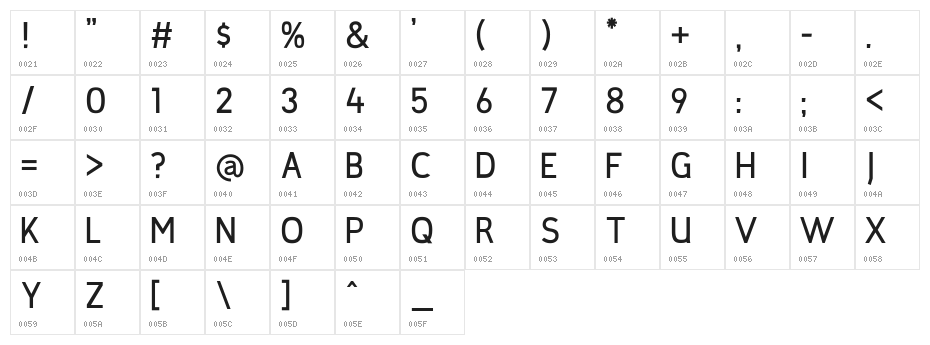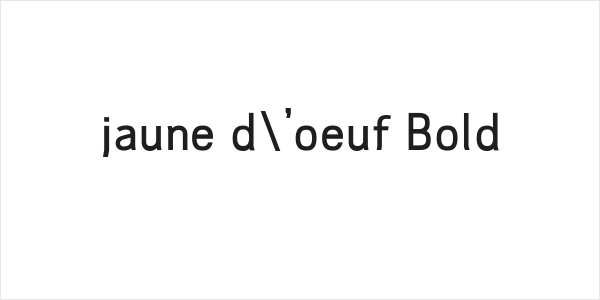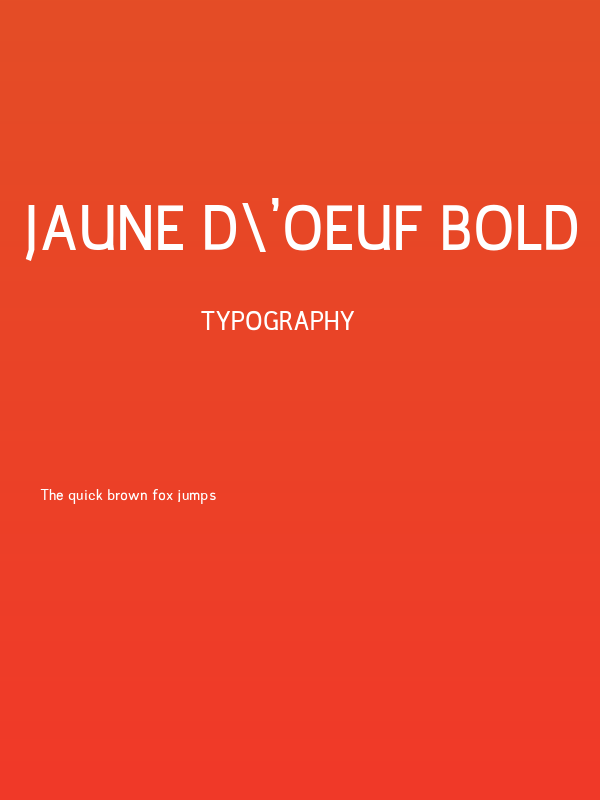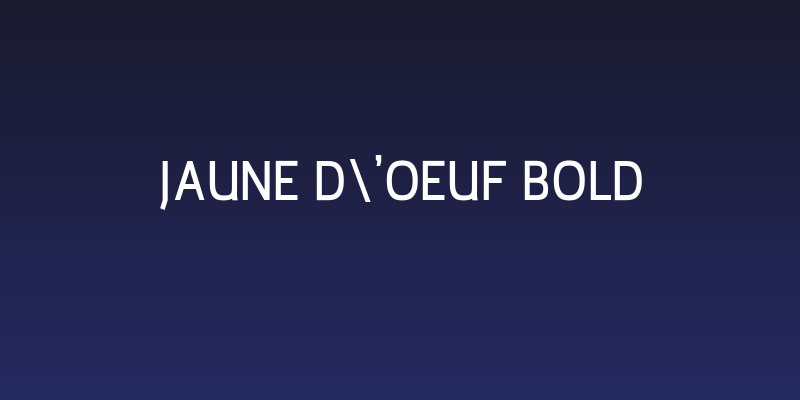
jaune d'oeuf Bold Font
jaune d'oeuf Bold Description
This font features a clean and modern sans-serif design with a bold weight, making it highly legible and impactful. The characters are evenly spaced, providing a balanced and harmonious appearance. The uppercase and lowercase letters are well-proportioned, with a consistent stroke width that enhances readability. The numerals are clear and distinct, while the special characters are designed to complement the overall style. This font's simplicity and clarity make it versatile for various design applications.
| Use Case | Headlines, Logos, Digital content |
| Proposed Projects | Ideal for branding, advertising, headlines, and digital content where clarity and impact are essential. |